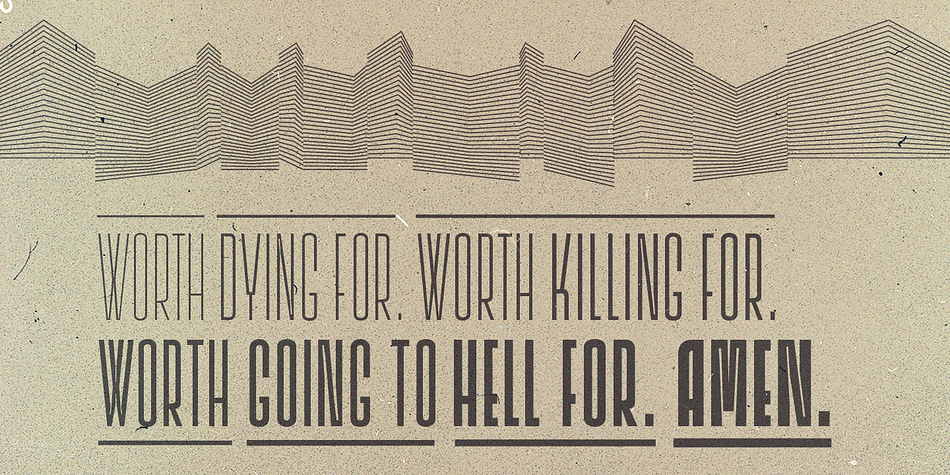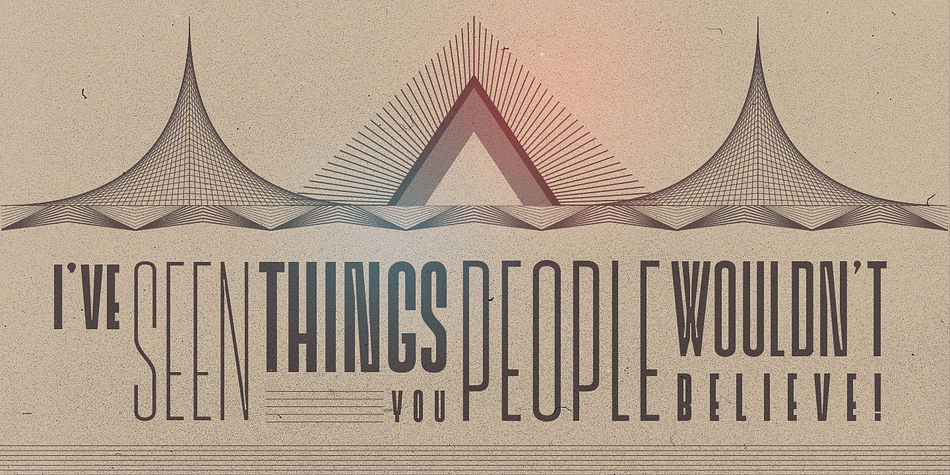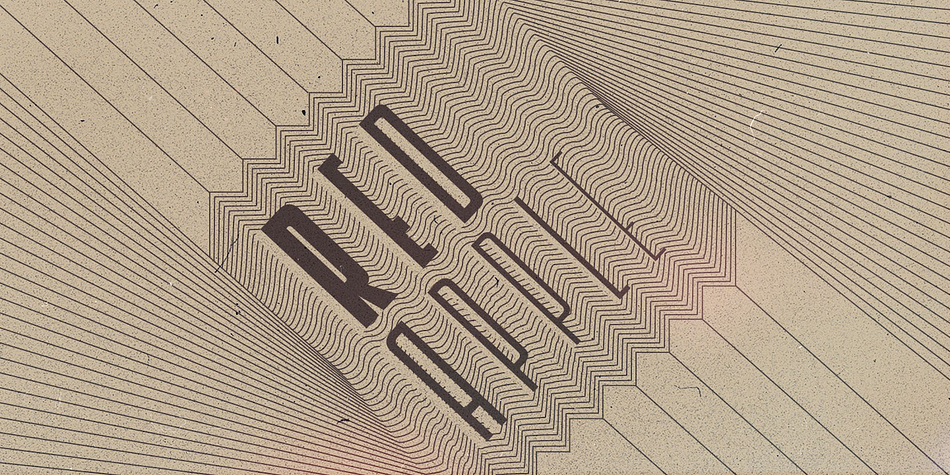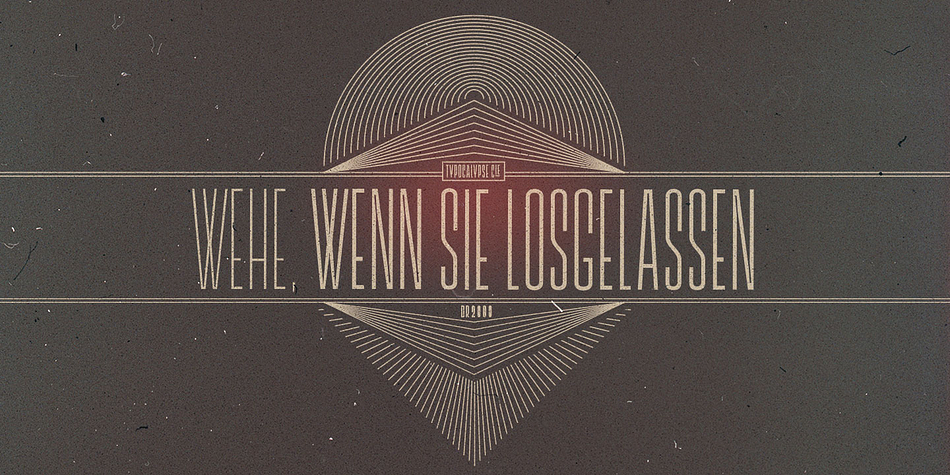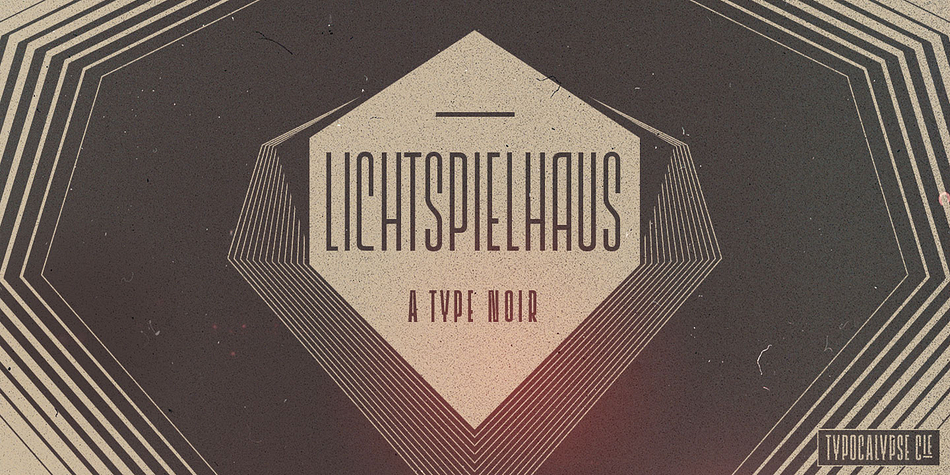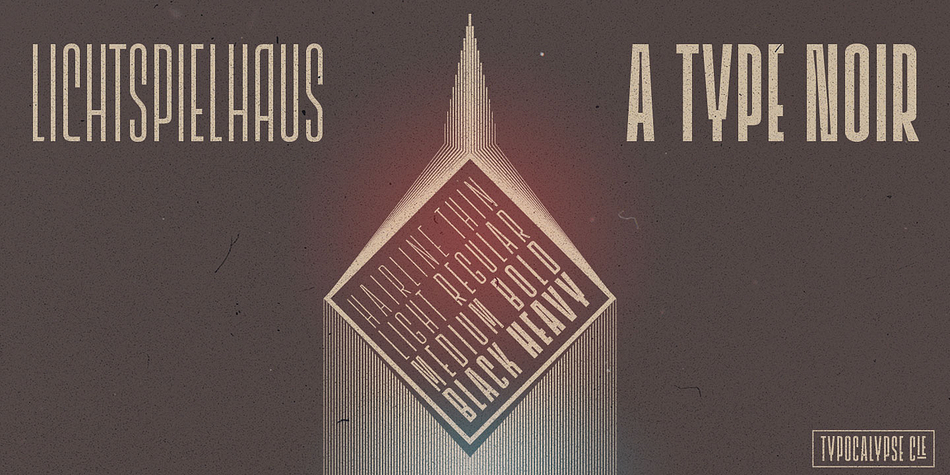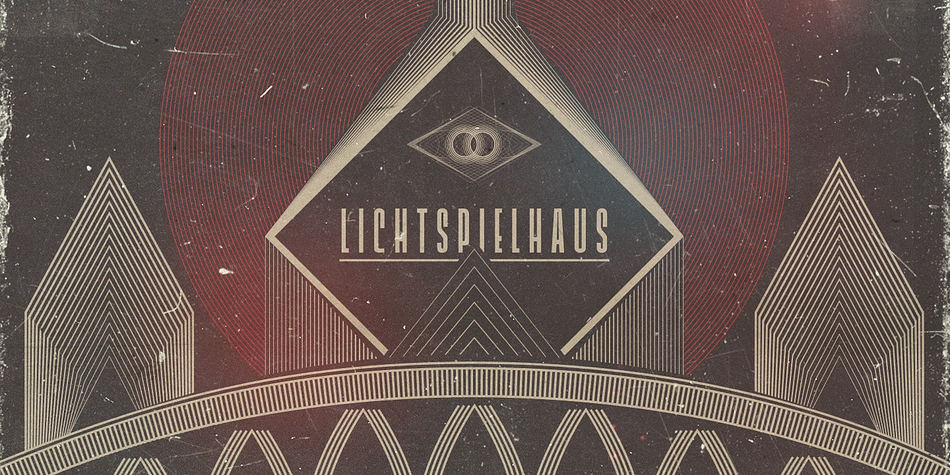
Designed by Stefan Huebsch, Lichtspielhaus is a display sans and retro font family. This typeface has eight styles and was published by Typocalypse.
Lichtspielhaus is an ultra condensed Lichtspiele Spin-Off with 8 weights. It still transports you back to a time where neon lights and marquee letters decorated cinema facades.
There are 8 styles: Hairline, Thin, Light, Regular, Medium, Bold, Black and Heavy.
“Lichtspielhaus” is the first part of a new Type Noir Quadrilogy.